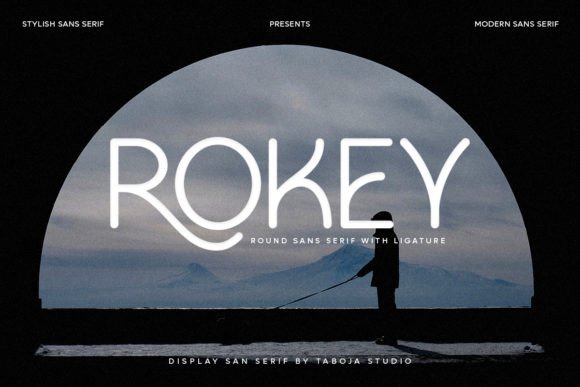
Rokey, Bold Sans‑Serif Font for Logos & Packaging
Rokey is a display‑style font designed to deliver clear, strong typography with a modern aesthetic. Its letterforms are crafted to stand out, making it great for headlines, signage, packaging, or any design where you want typography to do some of the heavy lifting. As a digital font asset, it integrates smoothly into design workflows — from web graphics to print and merchandise.
- Clean and professional display styling — works for both bold headlines and neat branding use
- Strong readability and presence — ideal for posters, packaging, signage, or products where clarity matters
- Versatile across media — works well for digital graphics, print design, merchandise, and craft‑based workflows